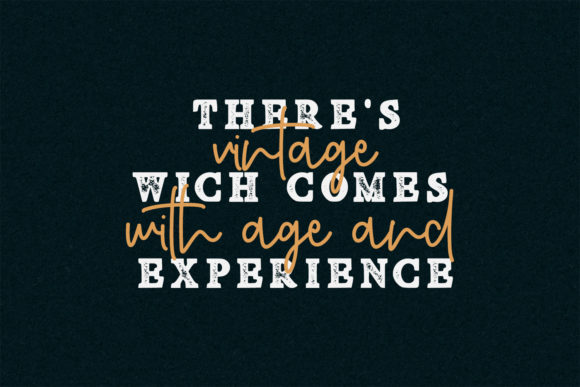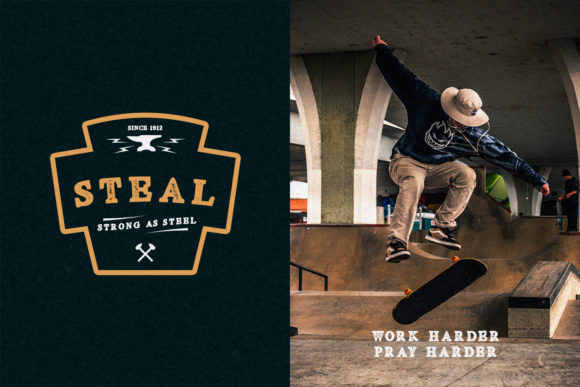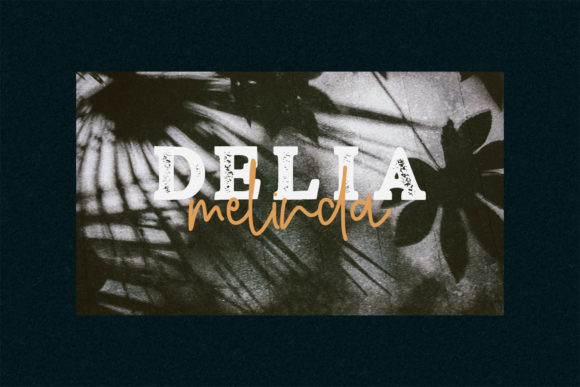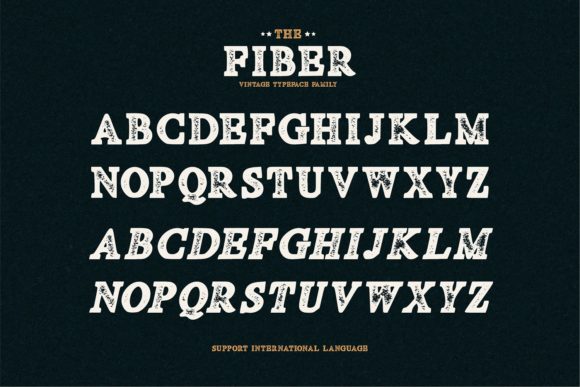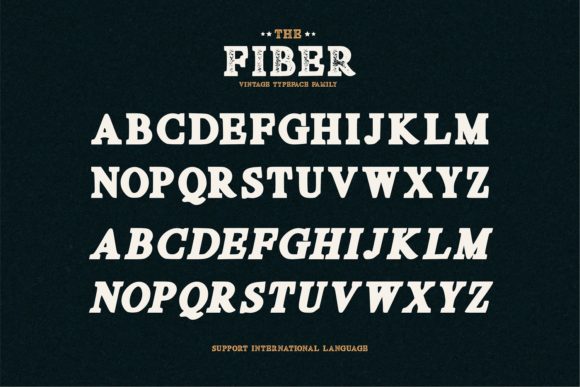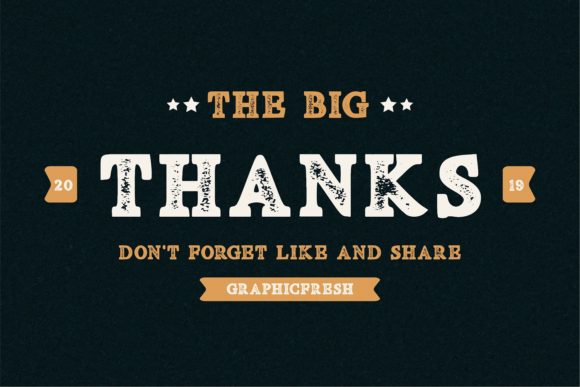
Fiber Font: The Ultimate Vintage Display Font for Western-Themed Crafts
Are you a designer or crafter looking for a font that can add a touch of vintage charm to your Western-themed projects? Look no further than Fiber Font! This bold and stunning display font is the perfect choice for anyone who wants to create eye-catching crafts that stand out from the crowd.
What is Fiber Font?
Fiber Font is a beautifully crafted display font that exudes a vintage feel. Its unique design is inspired by classic Western typography, making it an ideal choice for crafts that require a touch of nostalgia and charm. Whether you’re working on a DIY project, creating a logo, or designing a poster, Fiber Font is sure to make your work look amazing.
Key Features of Fiber Font
- Bold and Stunning: Fiber Font is a bold and eye-catching font that’s perfect for making a statement. Its thick lines and vintage-inspired design make it stand out from other fonts.
- Vintage Feel: The font has a classic Western feel that’s reminiscent of old-timey posters and signs. It’s perfect for crafts that require a touch of nostalgia and charm.
- Highly Versatile: Fiber Font can be used for a wide range of projects, from DIY crafts to professional design work. It’s perfect for creating posters, logos, and other visual materials.
- Easily Readable: Despite its bold design, Fiber Font is easily readable, making it perfect for use in titles, headings, and other applications where text needs to be clear and concise.
Why Choose Fiber Font?
So why should you choose Fiber Font for your Western-themed crafts? Here are just a few reasons:
- Unique Design: Fiber Font has a unique design that’s unlike any other font on the market. Its vintage-inspired design is sure to make your crafts stand out.
Examples of Fiber Font in Use
Fiber Font can be used in a wide range of applications, from DIY crafts to professional design work. Here are a few examples:
- Western-Themed Posters: Use Fiber Font to create eye-catching posters for Western-themed events, such as rodeos or cowboy gatherings.
- DIY Crafts: Add a touch of vintage charm to your DIY crafts, such as wood signs or paper crafts, with Fiber Font.
- Logos: Use Fiber Font to create a unique and memorable logo for your business or brand.
In conclusion, Fiber Font is a bold and stunning display font that’s perfect for Western-themed crafts. Its unique vintage design and highly versatile nature make it an ideal choice for designers and crafters who want to add a touch of nostalgia and charm to their work. With its ease of use and affordability, Fiber Font is a must-have font for anyone who wants to create eye-catching crafts that stand out from the crowd.